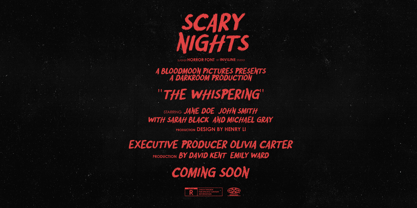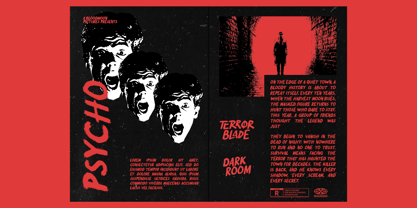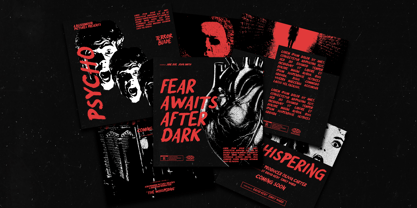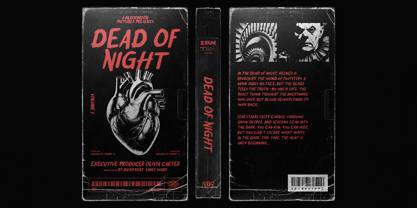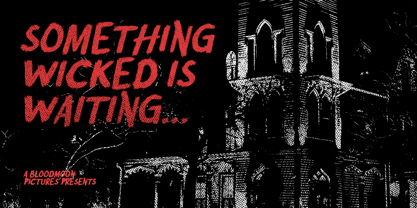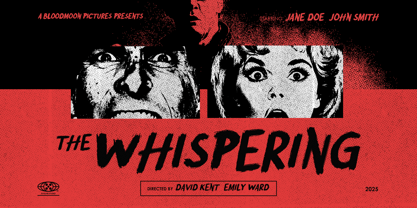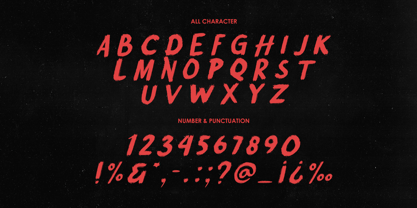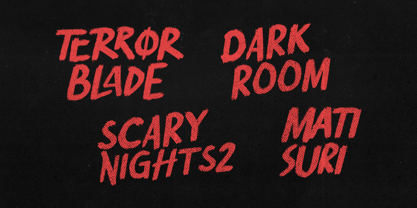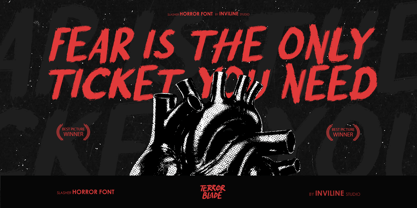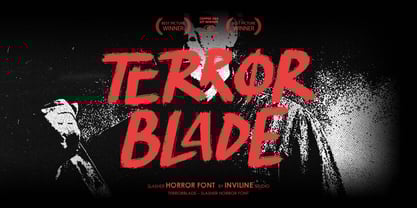
Terror Blade
by Inviline
The Terror Blade Font Family was designed by Virgiawan Listanto and published by Inviline. Terror Blade contains 1 styles. More about this family
TERROR BLADE is a slasher-inspired horror font that embodies raw, hand-brushed energy. Designed for filmmakers, designers, and creatives who revel in the thrill of the macabre, this typeface is ideal for crafting intense visuals and blood-curdling graphics. Drawing inspiration from 80s slasher films and cult horror posters, it infuses an authentic scary vibe into any project. The rough brush strokes and aggressive cuts make it perfect for movie titles, scream-fest flyers, Halloween event promotions, spooky merchandise, and bold quotes. Terror Blade doesn’t just whisper — it screams. What You Get: All-uppercase letters, numbers, punctuation, and special symbols, grunge horror brush texture. Perfect For: Horror movie titles, Halloween posters and party invitations, scary game titles, creepy merchandise and apparel, experimental visuals and scream queens. Elevate your projects with the chilling impact of Terror Blade, where every letter is a scream of creativity!
Designers: Virgiawan Listanto
Foundry: Inviline